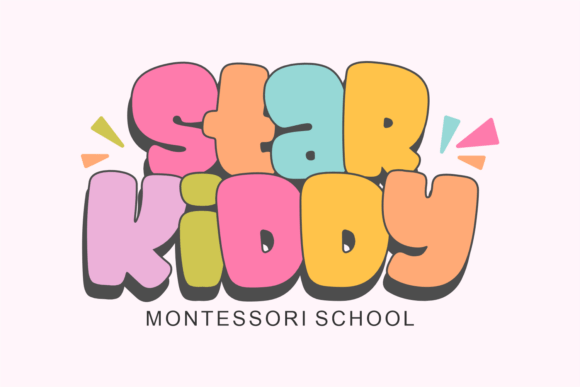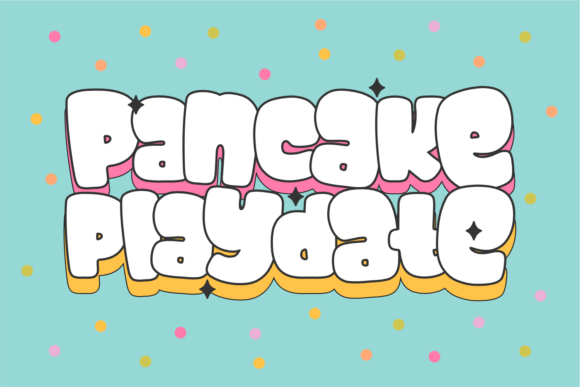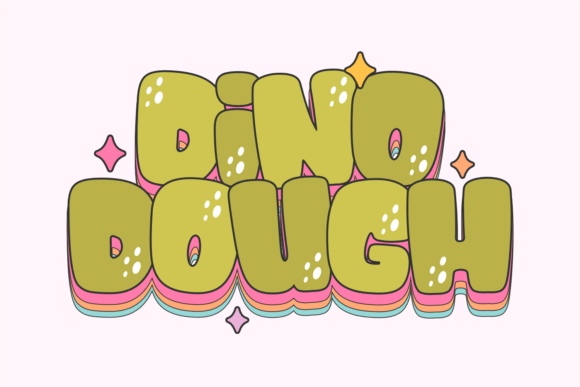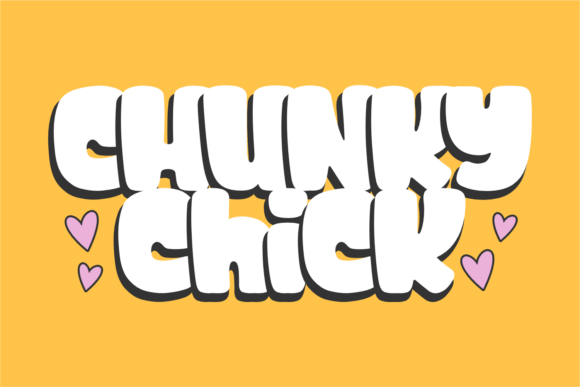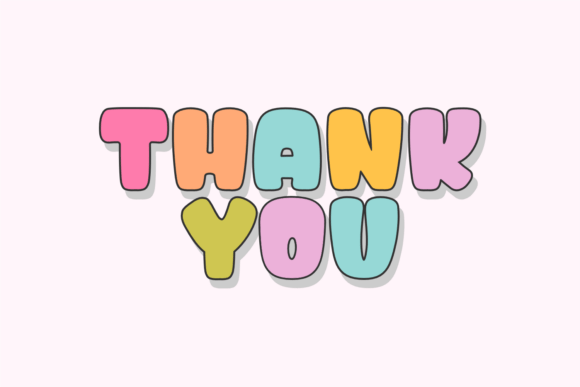
Unlocking the Joy of Childhood in Your Designs
Remember the magic of childhood? The laughter, the imagination, and the endless possibilities? For designers, capturing that whimsical spirit can be a challenge, but what if you had a font that could transport your audience back to a time of innocence and wonder? That’s where Kinder Font comes in – a bold, bubbly display typeface designed to bring a smile to anyone’s face.
With its chunky letterforms and soft edges, Kinder Font is the perfect choice for projects that need a friendly and approachable touch. Whether you’re designing for a preschool, creating birthday party invitations, or developing cute branding for kids’ products, this delightful font is sure to stand out. Its high legibility and thick strokes make it ideal for both digital screens and physical prints, making it a valuable addition to any designer’s toolkit.
Kinder Font Key Features
- Unique Characteristics: Kinder Font features a unique, child-friendly design that is both playful and educational. The font is designed to be easy to read and recognize for young children, making it an excellent choice for children’s books, educational materials, and other applications where readability is crucial.
Kinder Font Review
Overall, I was excited to dive into Kinder Font and see how it would perform in my design projects. Here’s my honest review:
- Unique and playful style – Kinder Font has a one-of-a-kind charm that can add a whimsical touch to any design project.
- Highly legible – The font’s design makes it easy to read, even at smaller font sizes.
- Perfect for children’s content – As the name suggests, Kinder Font is ideal for projects related to kids, such as children’s books, educational materials, and more.
- Not ideal for formal content – Kinder Font’s playful style may not be suitable for more serious or formal projects, such as business reports or technical documents.
- Limited language support – Kinder Font may not be available in as many languages as other popular fonts, which could be a limitation for designers working on international projects.
Overall, Kinder Font is a solid choice for designers looking to add a playful touch to their projects. While it may not be suitable for all types of content, it’s perfect for kids-related projects and can add a unique charm to any design.
Getting the Most Out of Kinder Font
Here are some tips to get the most out of Kinder Font:
– Use Kinder Font for titles, headings, and body text to create a consistent visual brand.
– Experiment with different font sizes and colors to achieve a balanced design.
– Combine Kinder Font with other fonts to create a unique visual identity.
Kinder Font is ideal for use in:
– Children’s educational materials, such as textbooks, worksheets, and activity sheets.
– Children’s party invitations, banners, and decorations.
– Family-friendly branding and marketing materials, such as logos, brochures, and websites.